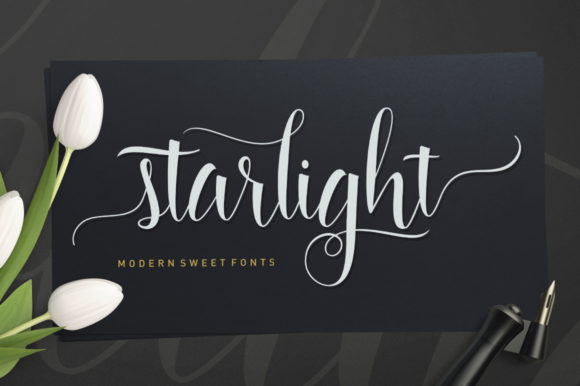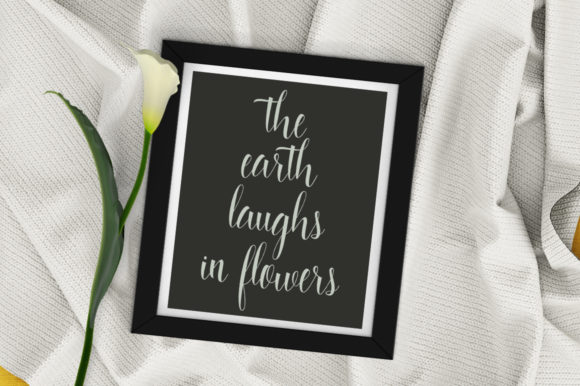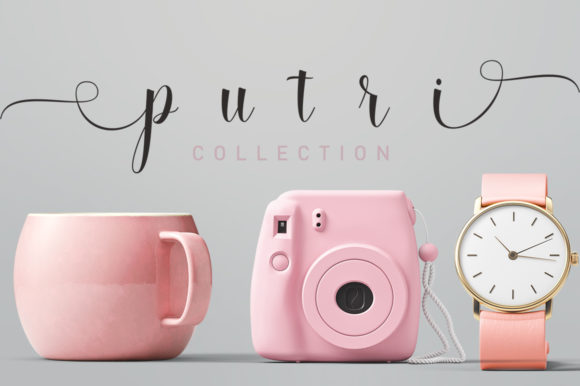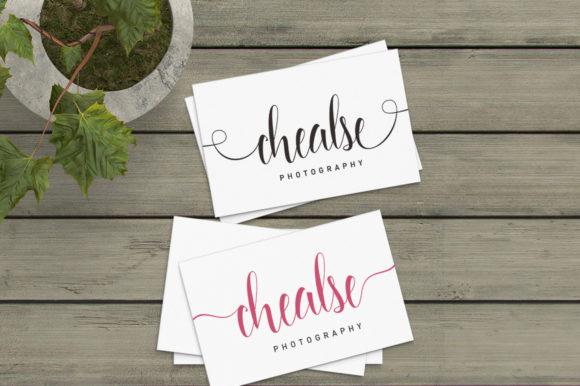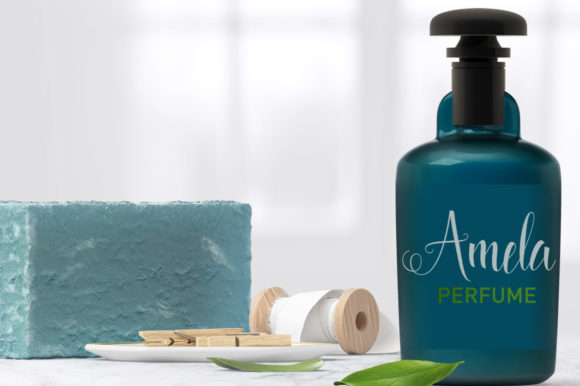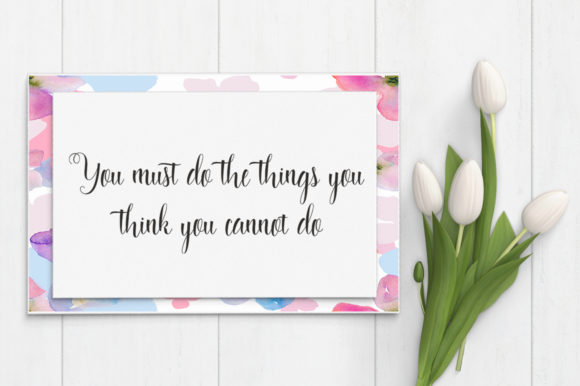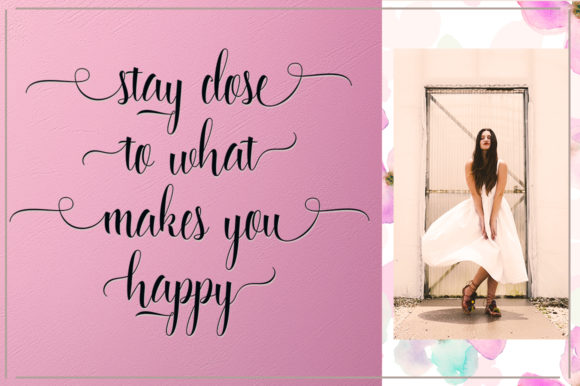
Starlight Script Font
About Starlight Script Font
The Starlight Script is a modern handwritten script. It’s easy to use and has a great readability. Perfect for branding designs!